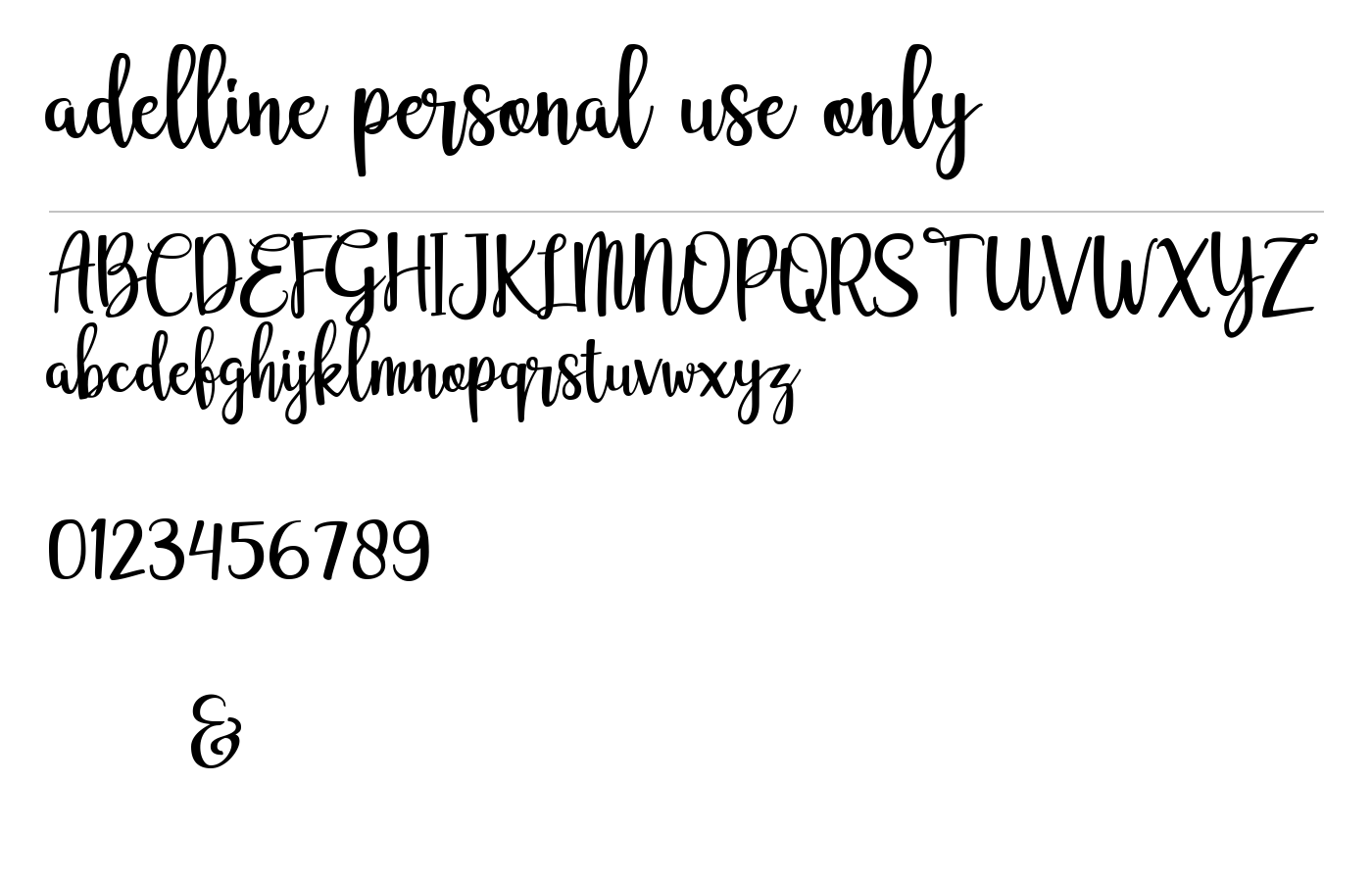
Adelline Personal Use Only is a charming handwritten script font with a playful and elegant vibe. Its tall, slender letterforms feature smooth, flowing strokes and unique loops that give it a friendly yet sophisticated feel, perfect for adding a personal touch to invitations, branding, or social media graphics. This font works beautifully in creative projects that seek warmth and style without sacrificing readability.
adelline personal use only Font
About adelline personal use only Font
| Font family | adelline personal use only Font |